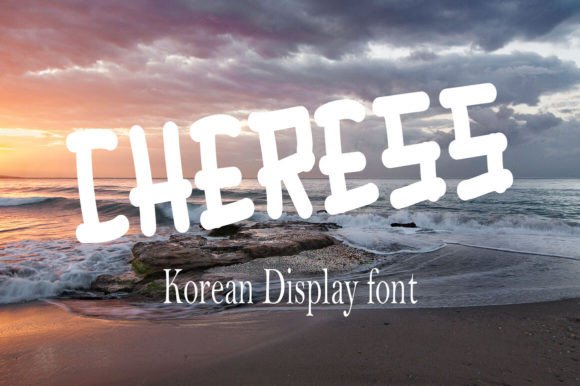
Cheress Font: The Sweet and Friendly Display Font for Your Design Needs
Are you looking for a font that can add a touch of sweetness and friendliness to your designs? Look no further than Cheress Font! This beautiful display font is perfect for a wide range of design projects, from branding and advertising to packaging and digital media. In this article, we’ll take a closer look at Cheress Font, its unique features, and how you can use it to take your designs to the next level.
What is Cheress Font?
Cheress Font is a sweet and friendly display font that is designed to add a personal touch to your designs. Its natural and unique style makes it incredibly fitting to a large pool of designs, and the only limit is your imagination! Whether you’re looking to create a bold and eye-catching headline or a soft and subtle label, Cheress Font is the perfect choice.
Key Features of Cheress Font
- Sweet and Friendly Design: Cheress Font has a sweet and friendly design that is perfect for creating a warm and inviting atmosphere in your designs.
- Natural and Unique Style: The font has a natural and unique style that makes it stand out from other fonts.
- Highly Versatile: Cheress Font is highly versatile and can be used for a wide range of design projects, from branding and advertising to packaging and digital media.
- Easily Readable: The font is easily readable, even at small sizes, making it perfect for use in body text or captions.
What Makes Cheress Font So Special?
Cheress Font is a special font that stands out from the rest due to its unique features. Here are a few things that make Cheress Font so special:
Unique Letterforms
Cheress Font has unique letterforms that are designed to add a touch of personality to your designs. Each letter is carefully crafted to create a sense of warmth and friendliness, making it perfect for use in designs where you want to create an emotional connection with your audience.
Hand-Drawn Design
Cheress Font is a hand-drawn font, which gives it a personal and organic feel. The font is designed to look like it was drawn by hand, which makes it perfect for use in designs where you want to create a sense of authenticity and uniqueness.
Wide Range of Uses
Cheress Font is a highly versatile font that can be used for a wide range of design projects. Here are a few ideas for how you can use Cheress Font:
- Branding and Advertising: Use Cheress Font to create eye-catching headlines and logos that will help your brand stand out.
- Packaging Design: Cheress Font is perfect for use in packaging design, where you want to create a personal and emotional connection with your customers.
- Digital Media: Use Cheress Font to create engaging and interactive digital media, such as social media graphics and website headers.
How to Use Cheress Font
Using Cheress Font is easy! Here are a few tips for getting started:
Choose the Right Size
Cheress Font is a display font, which means it’s designed to be used at larger sizes. For best results, use Cheress Font at sizes 24pt or larger.
Pair it with Other Fonts
Cheress Font is a versatile font that can be paired with a wide range of other fonts. For best results, pair Cheress Font with a clean and simple sans-serif font, such as Arial or Helvetica.
Experiment with Colors
Cheress Font is a font that can be used with a wide range of colors. Experiment with different colors to find the perfect combination for your design.
Cheress Font is a sweet and friendly display font that is perfect for a wide range of design projects. Its natural and unique style makes it incredibly fitting to a large pool of designs, and the only limit is your imagination! With its unique letterforms, hand-drawn design, and wide range of uses, Cheress Font is a font that can help you take your designs to the next level.